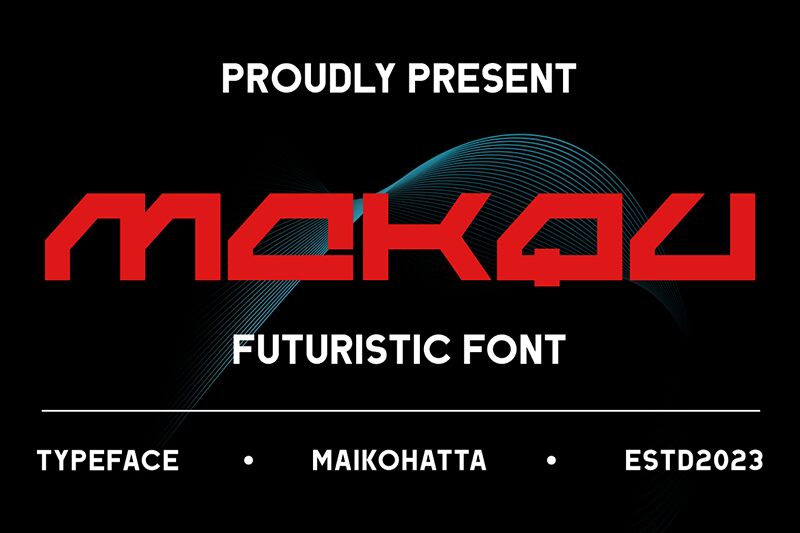
MAKQU
Makqu font by Gilang Ternadho is an expanded techno display font suitable for futuristic and modernist projects. Its geometric look with angular shapes provides an appealing appearance for technical and digital projects. A free-spirited typeface, Makqu showcases a captivating design made up of a strong character that can educe attention.